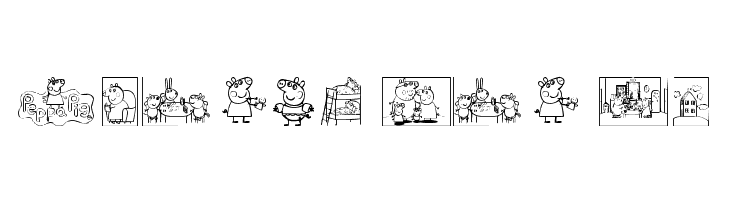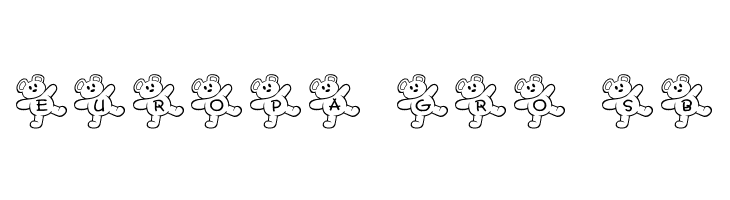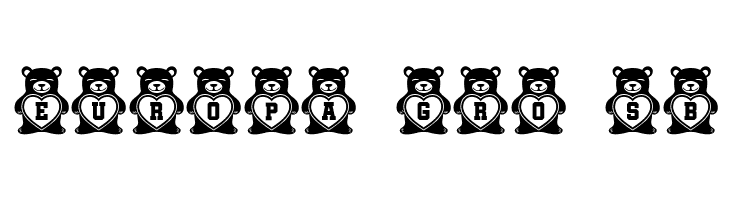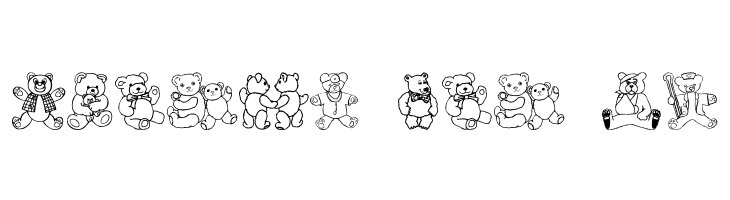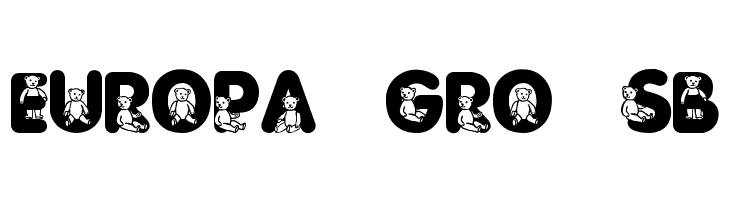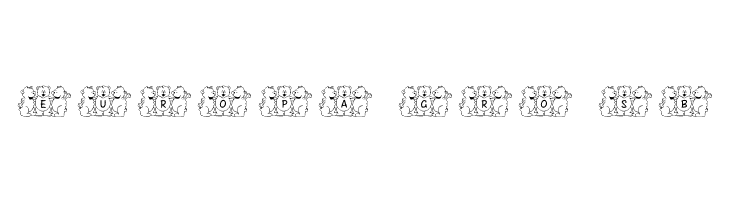
A playful, cartoonish font with animated numbers full of personality.
A playful, textured font with a frosted, hand-drawn appearance.
( Fonts by Ding Bang )
Cartoonish decorative font with character-based illustrations.
A playful font with letters inside cartoon teddy bear shapes, perfect for children's themes.
( MeCreativa - Michela Ferretti - www.mecreativa.com )
Whimsical cupcake-themed decorative font with hand-drawn charm.
( Vladimir Nikolic - www.coroflot.com/vladimirnikolic )
A playful font with characters inside teddy bear shapes, perfect for children's designs.
( Cyberbuny Creations )
Whimsical teddy bear illustrations form each character.
( Dingfontbats )
A playful font with teddy bear illustrations integrated into bold, rounded letters.
( FontasyLand - www.fontparty.com/designer.php3?dd=195 )
A playful, bear-themed decorative font perfect for children's projects.
( Katz Fontz - katzfonts.50megs.com/kg.html )
A playful font with bear illustrations, perfect for children's projects.